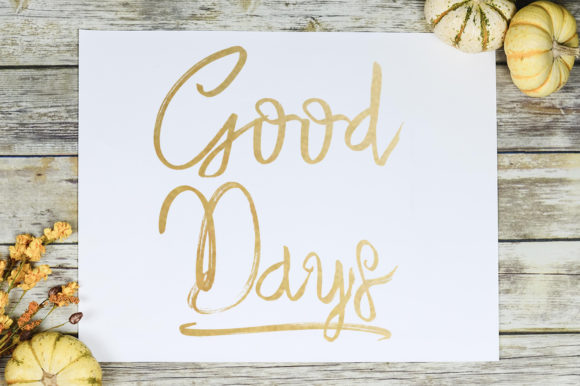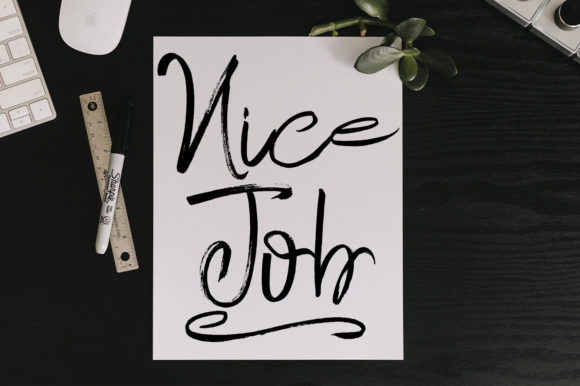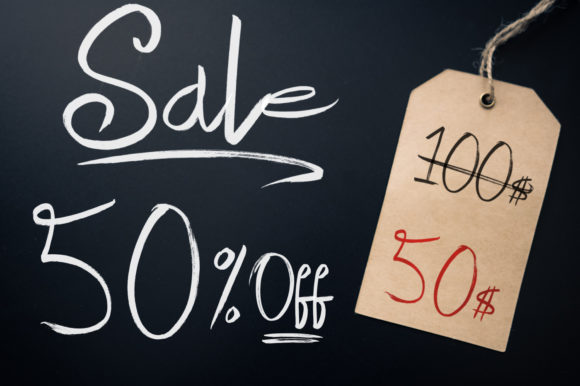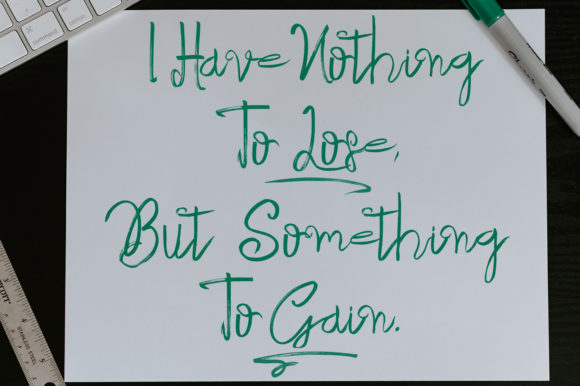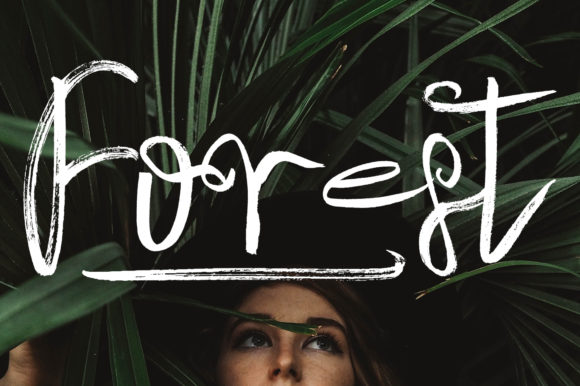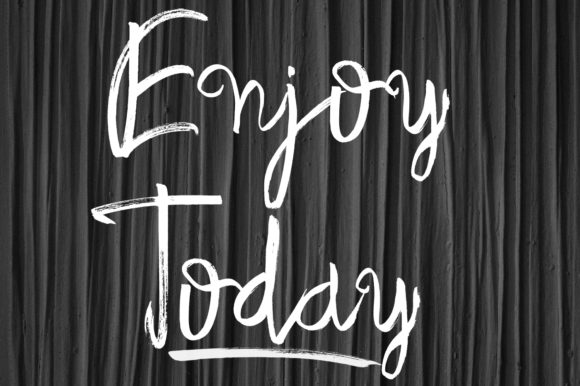
Introduction to Pastime Font
Have you ever found yourself lost in the nostalgia of a sunny summer day, surrounded by laughter and the simple joys of life? For many of us, these moments are the essence of what makes life worth living. And now, we can capture that essence in our designs with the Pastime Font.
This delightful font is a treasure trove of fun and whimsy, perfect for adding a touch of personality to your creative projects. Whether you’re working on a logo, a social media campaign, or a branding project, the Pastime Font is a valuable design resource that will elevate your work to the next level.
Pastime Font Key Features
- High-quality font designed for creative projects, offering a unique aesthetic and style.
- Includes multiple font weights and styles, providing flexibility for various design applications.
- Perfect for designers working on creative projects, from logos and branding to editorial and publishing content.
Honest Review: Pastime Font
I recently had the chance to work with the Pastime Font, and I must say it’s been a game-changer for my creative project. This free download is a design resource that truly delivers.
- High-quality design: The Pastime Font has a beautiful, vintage feel that’s perfect for any project.
- Great for creative projects: Whether it’s a blog, brochure, or website, the Pastime Font is a great choice.
While the Pastime Font is a great resource, there are a few limitations to keep in mind:
- Only available in a few weights: While the font is high-quality, it’s limited in terms of available weights.
- No bold or italic options: This can make it difficult to use the font for certain design elements.
Overall, I’m impressed with the Pastime Font. It’s a high-quality design resource that’s perfect for any creative project. While it has a few limitations, it’s a great addition to any designer’s toolkit.
Pastime Font
The Pastime Font is a high-quality, free download design resource perfect for any creative project. With its unique and elegant design, it adds a touch of sophistication to any visual content.
Tips for Getting the Most Out of Pastime Font
Experiment with different font sizes, colors, and combinations to achieve the desired visual effect. Use the transparent background feature to create stunning overlays and graphics.
The Pastime Font is ideal for creative projects such as blog posts, social media graphics, wedding invitations, and more. Its elegant design makes it perfect for any project requiring a touch of sophistication and style.
Comparison to Pastime Font: Aleo has a more modern and sleek design, whereas Pastime Font has a vintage and distressed look. While both fonts have a transparent background, Aleo is more versatile and can be used in a wider range of creative projects.